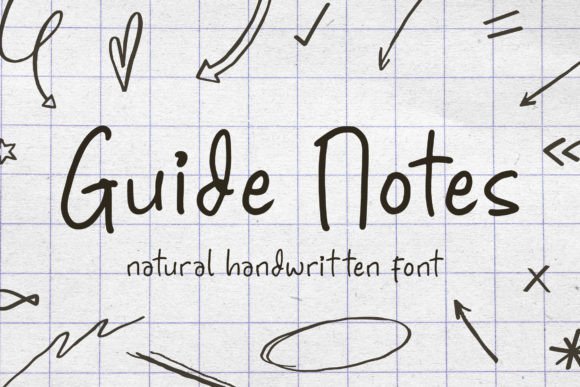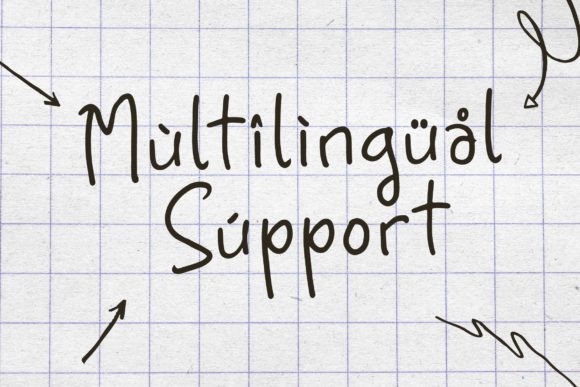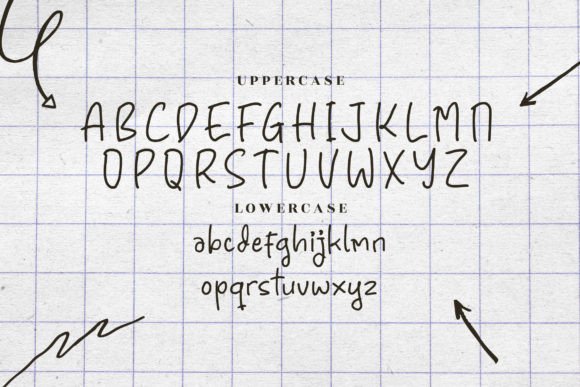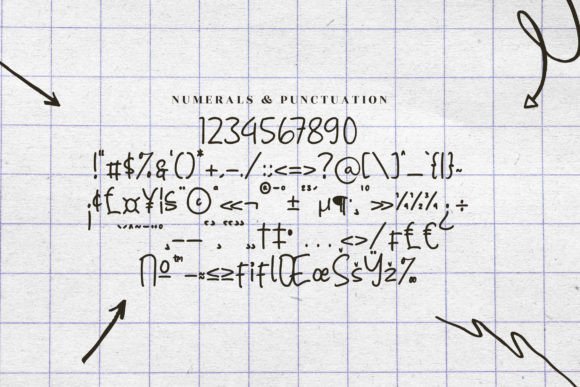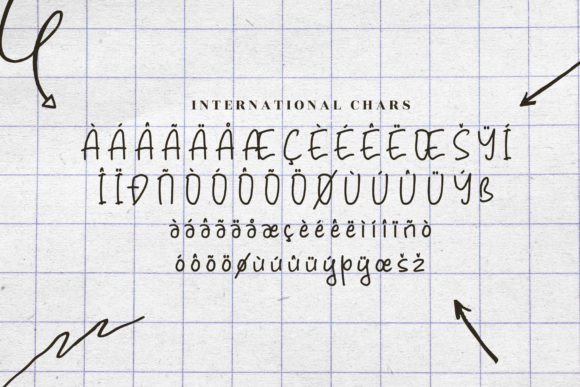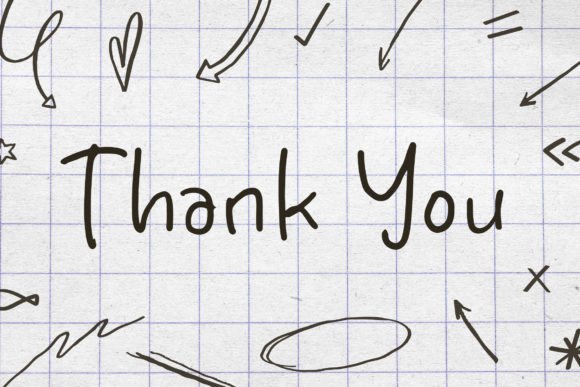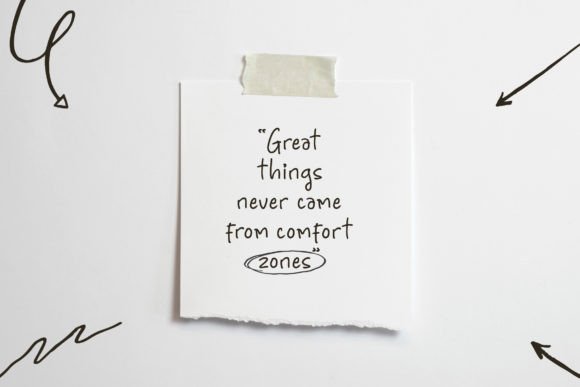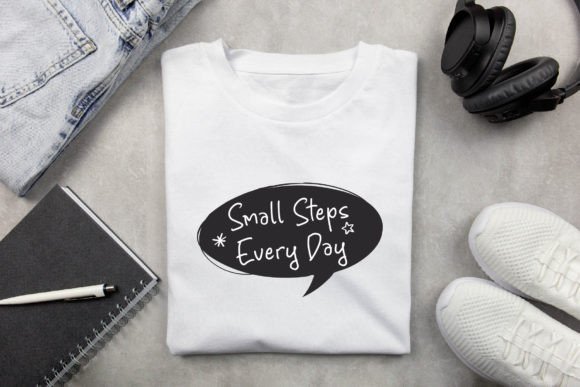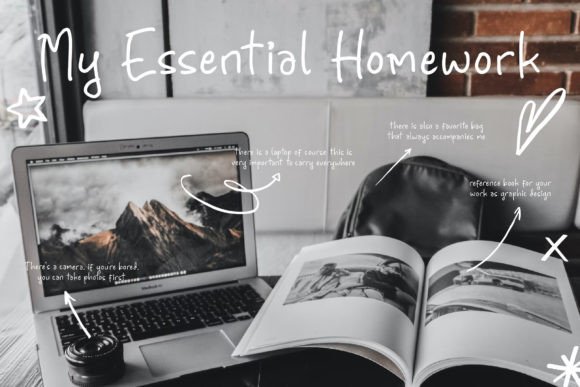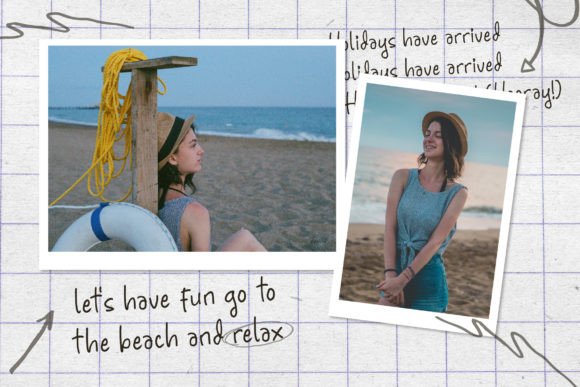
Guide Notes Font
“Guide Notes” emerges as a natural handwritten font designed to complement a variety of creative projects. Its versatility makes it well-suited for a broad spectrum of applications, ranging from logos and branding projects to homeware designs, product packaging, and more. Whether applied to mugs, quotes, posters, shopping bags, t-shirts, book covers, name cards, invitation cards, greeting cards, labels, photography, watermarks, or special events, “Guide Notes” promises to infuse a beautiful script taste into each project.
The natural handwritten quality of “Guide Notes” adds a touch of authenticity and warmth to the text, making it suitable for projects that seek a personal and genuine feel.
The font’s adaptability is showcased across diverse applications, from formal elements like logos and branding to more casual ones like t-shirts and shopping bags. This versatility ensures that “Guide Notes” can seamlessly integrate into various design contexts.
Its application to product packaging, labels, and mugs introduces a decorative element, transforming these items into visually appealing and personalized pieces.
In summary, “Guide Notes” emerges as a versatile and beautiful script font, capable of enhancing a wide range of creative projects. Its natural handwritten charm, coupled with its adaptability, makes it a valuable asset for designers seeking a script typeface with a beautiful and authentic aesthetic for their diverse projects.